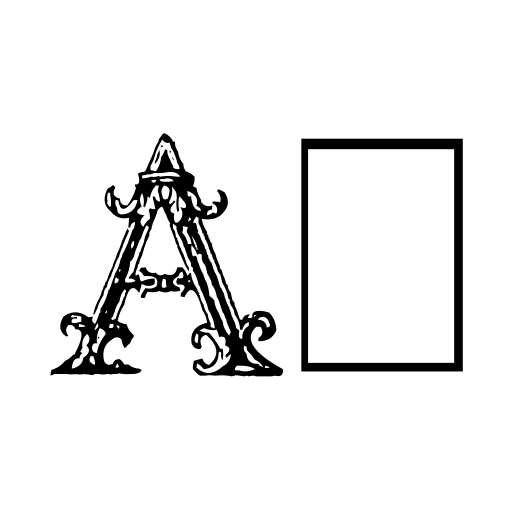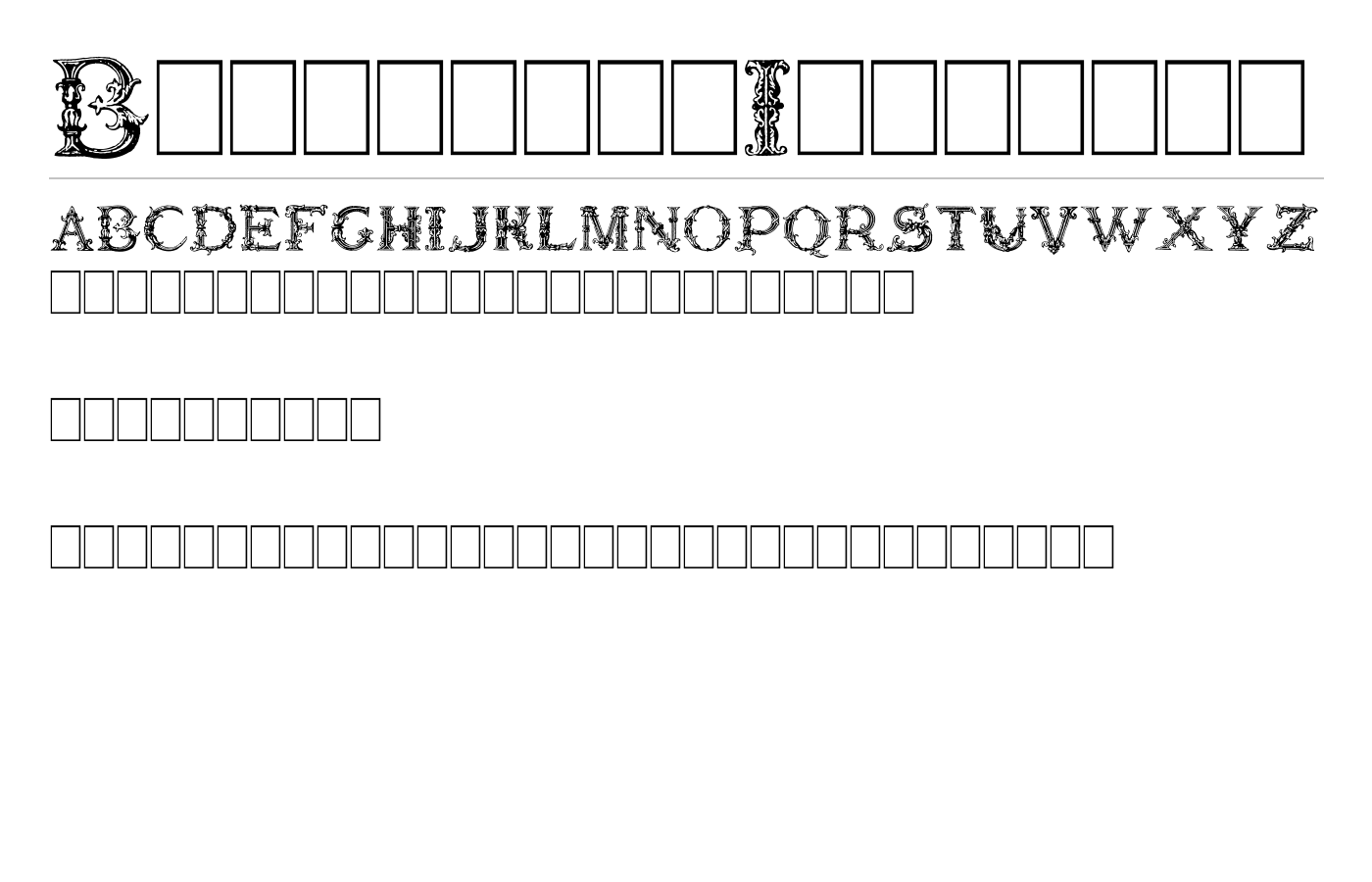
Burgoyne Initials is an ornate serif font featuring highly decorative capital letters that evoke a vintage, classical elegance. Its detailed flourishes and intricate design elements make it ideal for luxury branding, formal invitations, or editorial use where a refined and sophisticated mood is desired. This font works best in large sizes for headlines or logos due to its elaborate style, which captures attention and adds a distinguished, artistic touch.